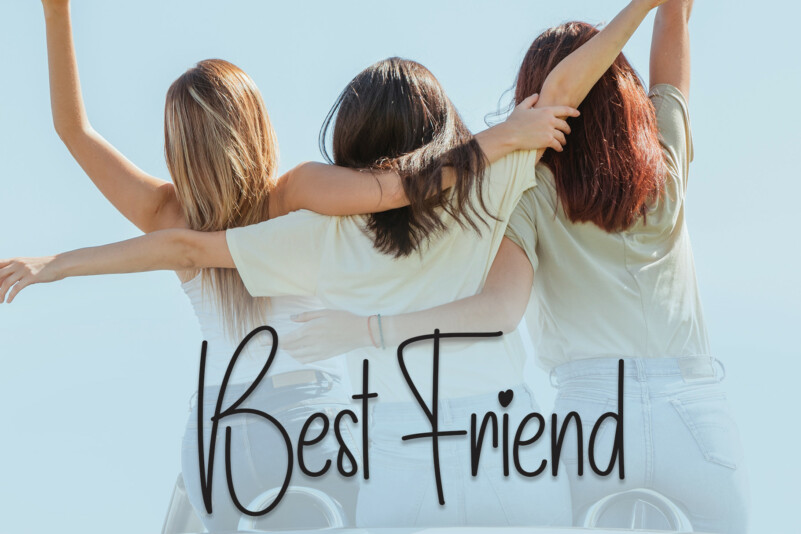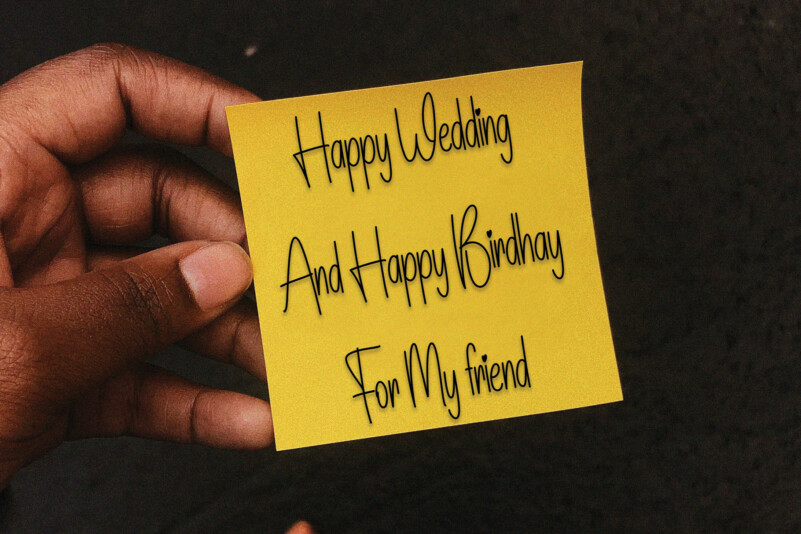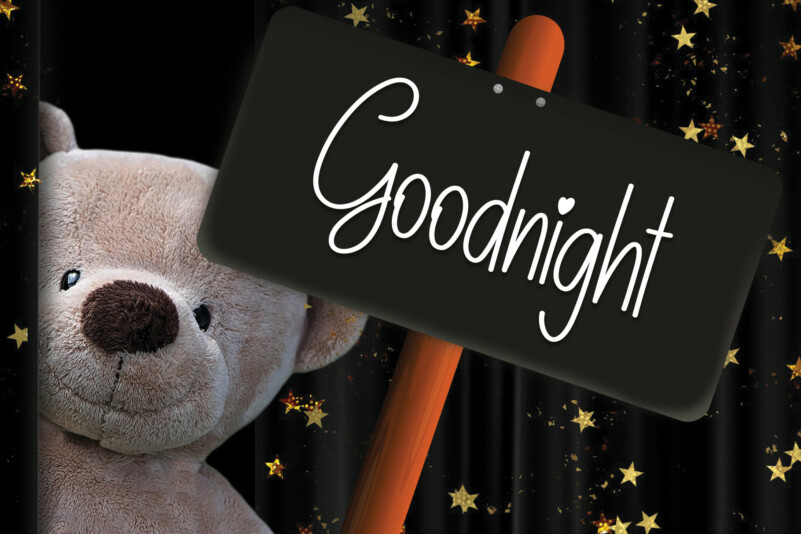
House Planner Script Font
House Planner Script Font – Casual and neat, this handwritten font is ready to help you create lovely designs. A little bit quirky, House Planner looks incredibly adept in a wide variety of contexts!